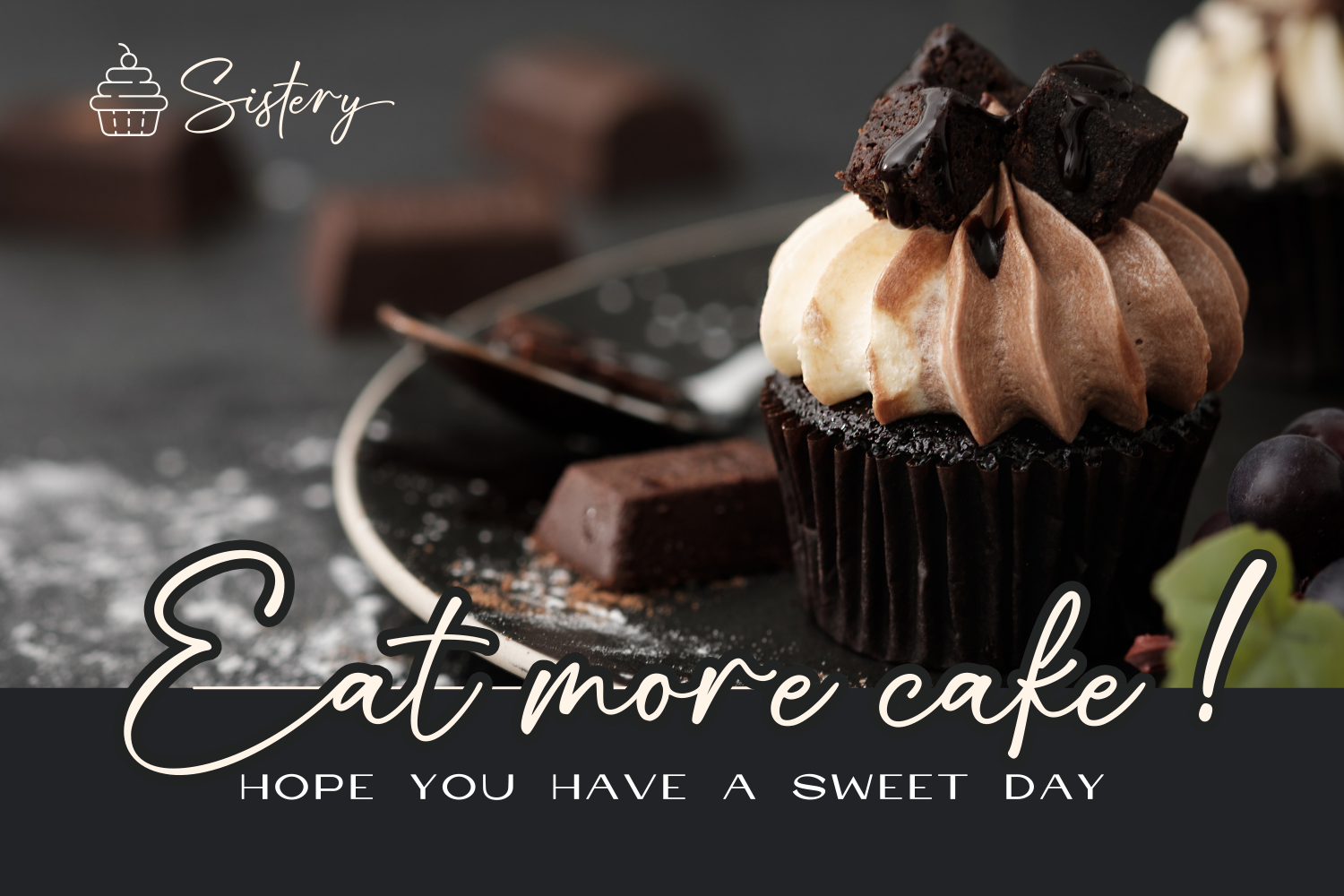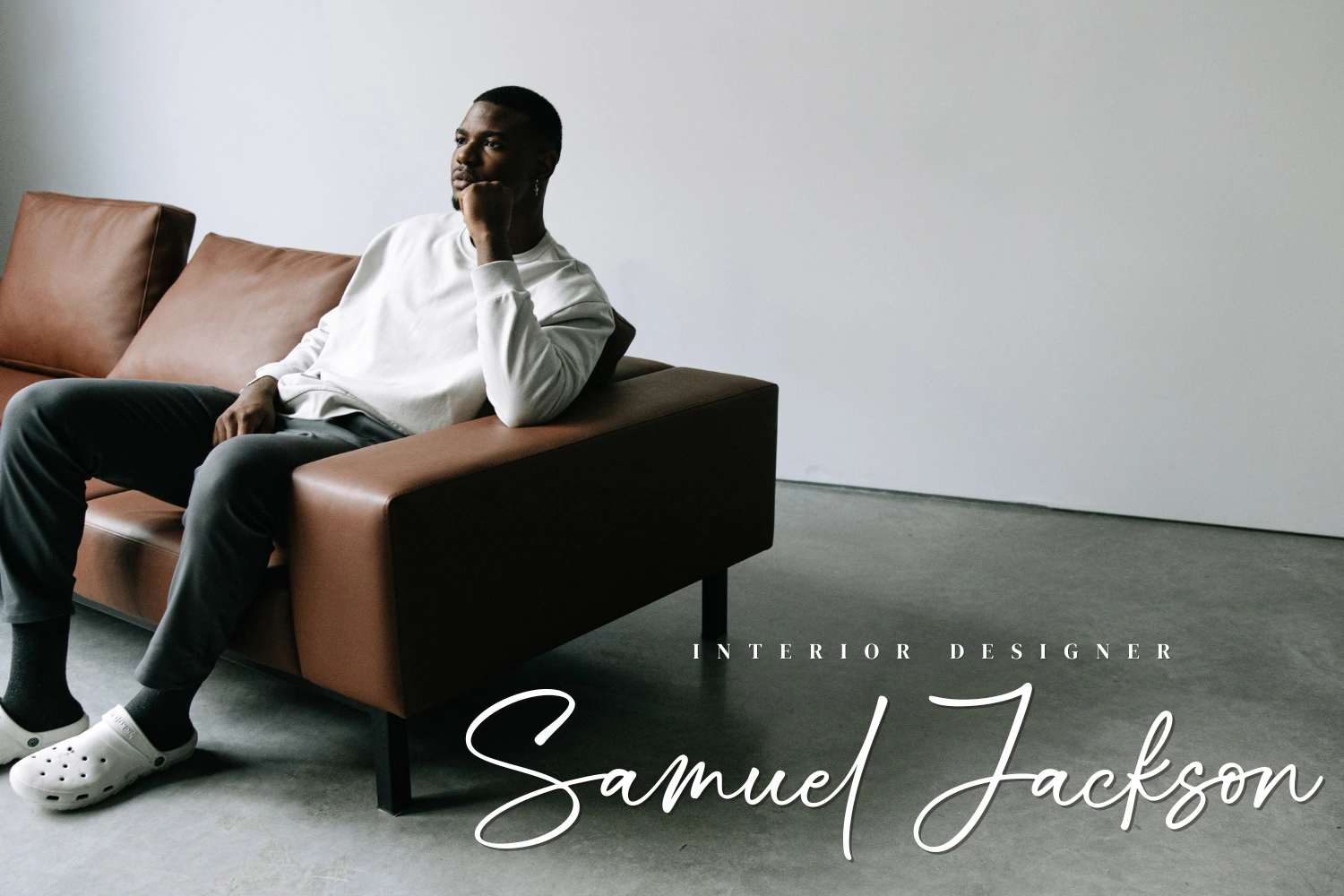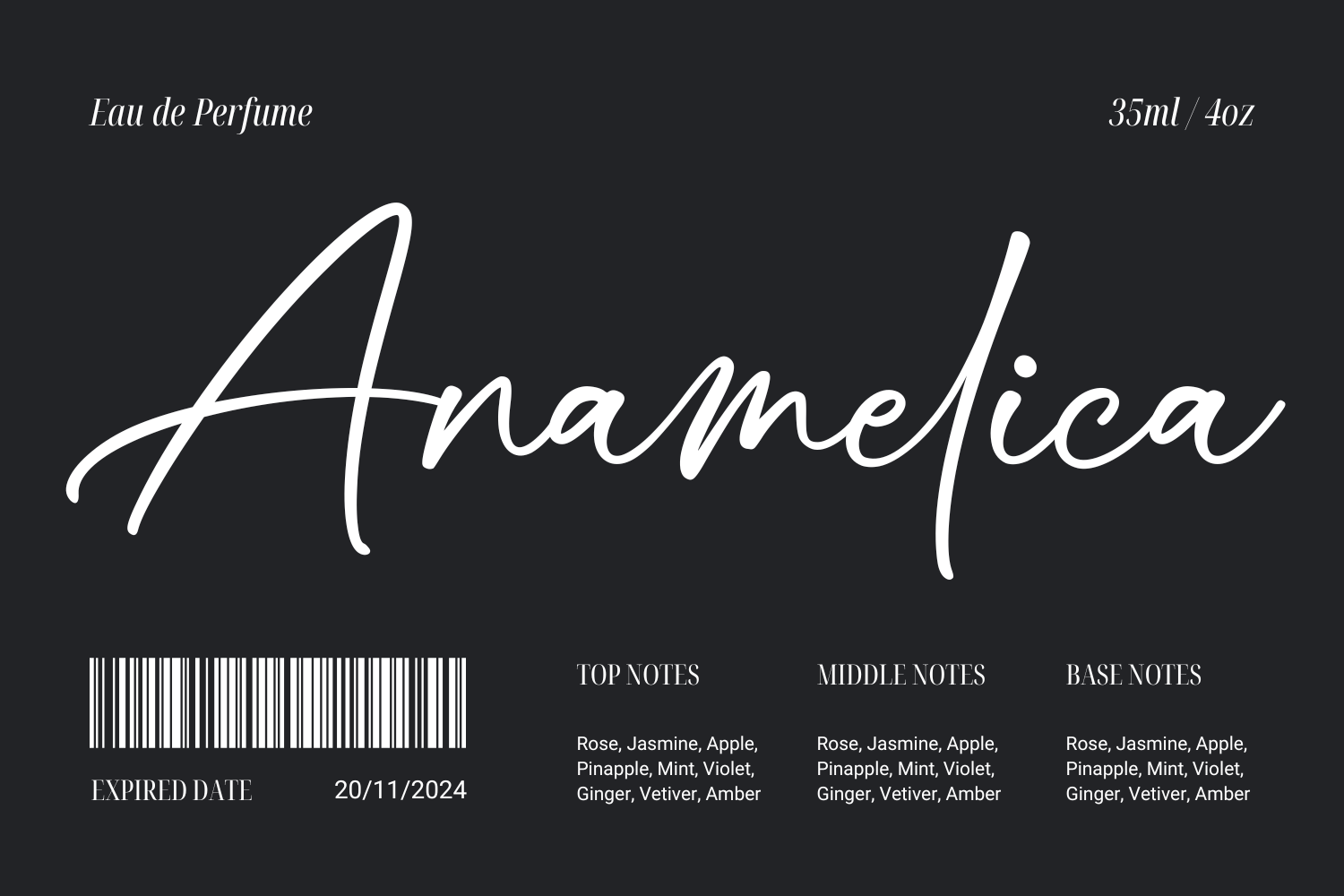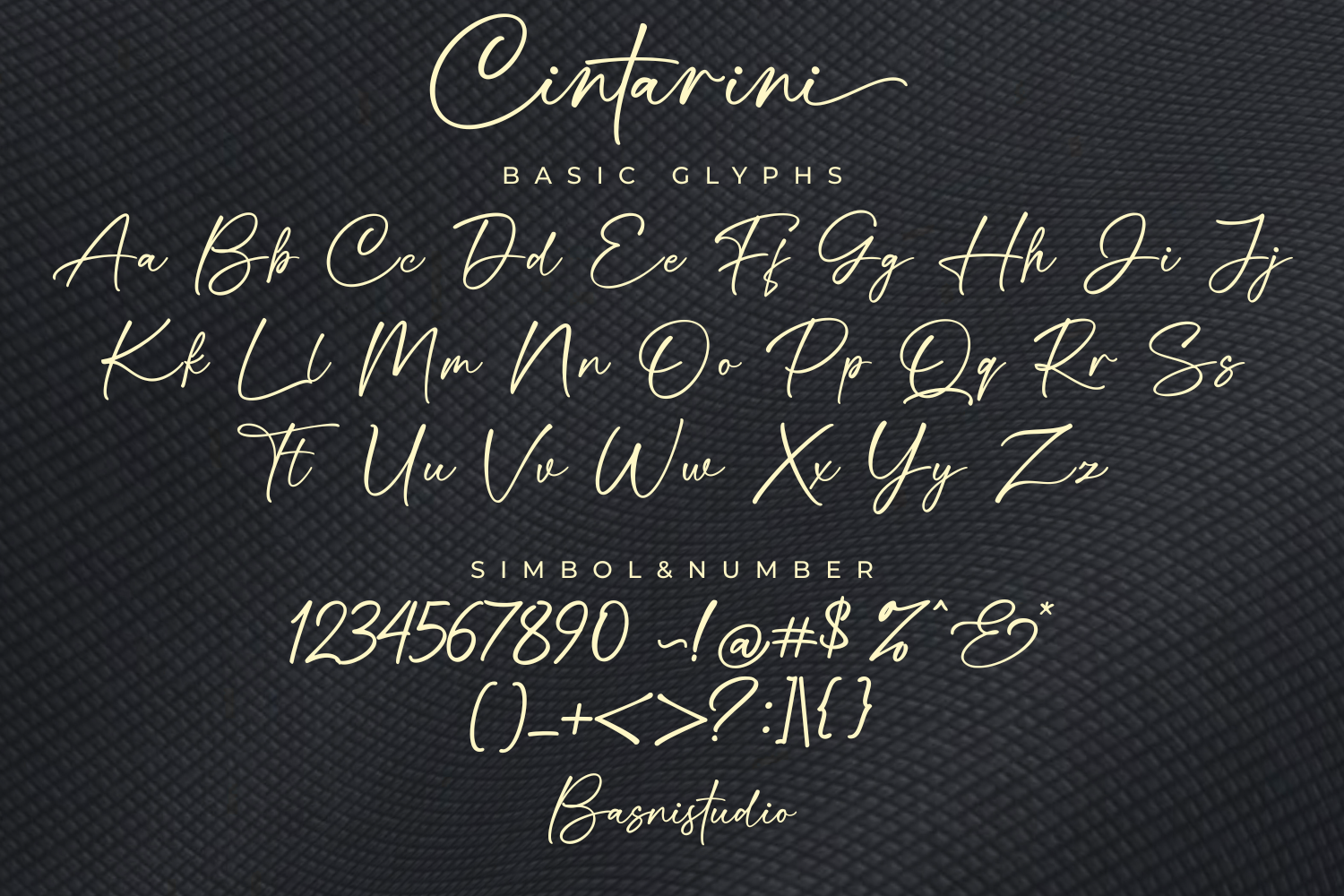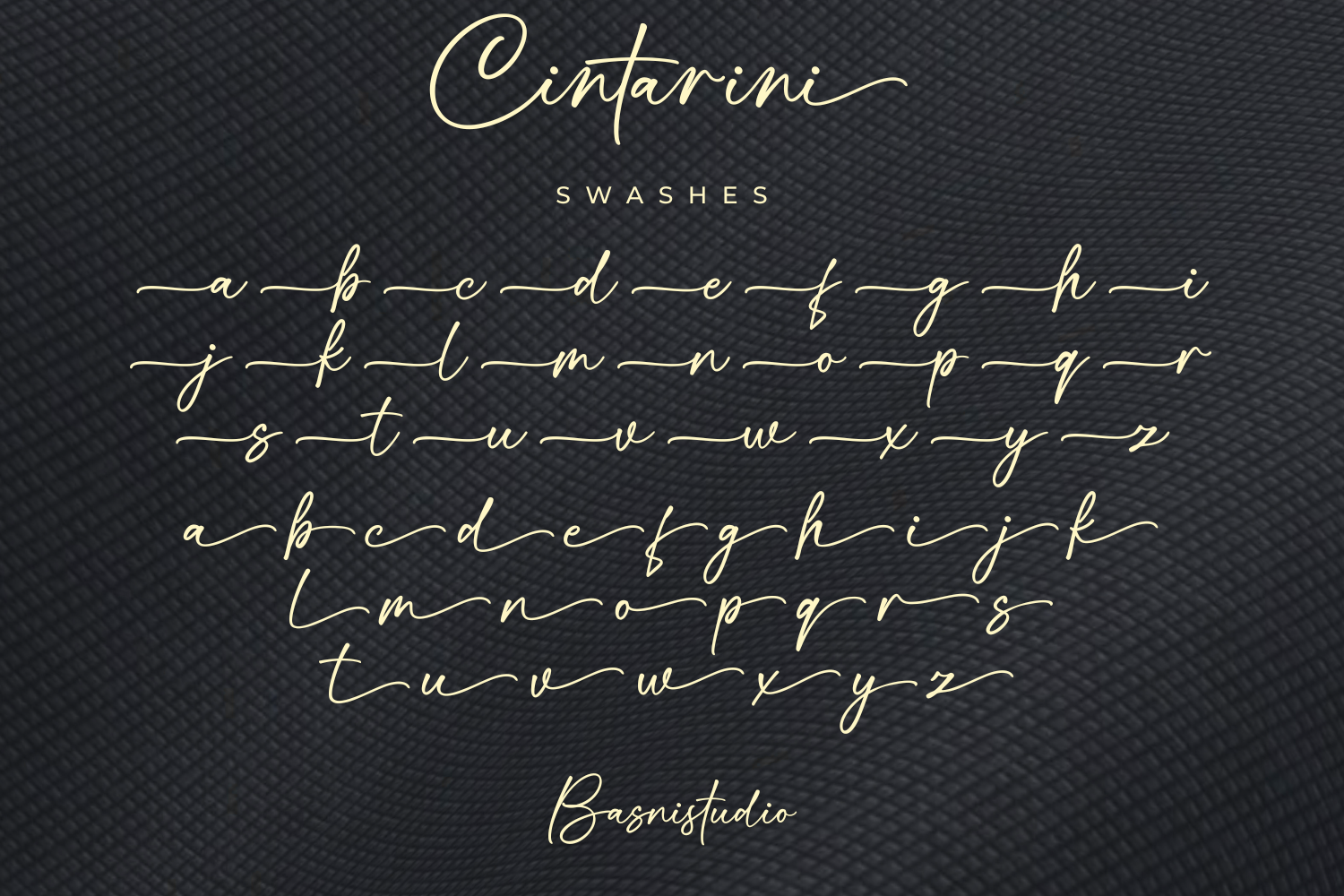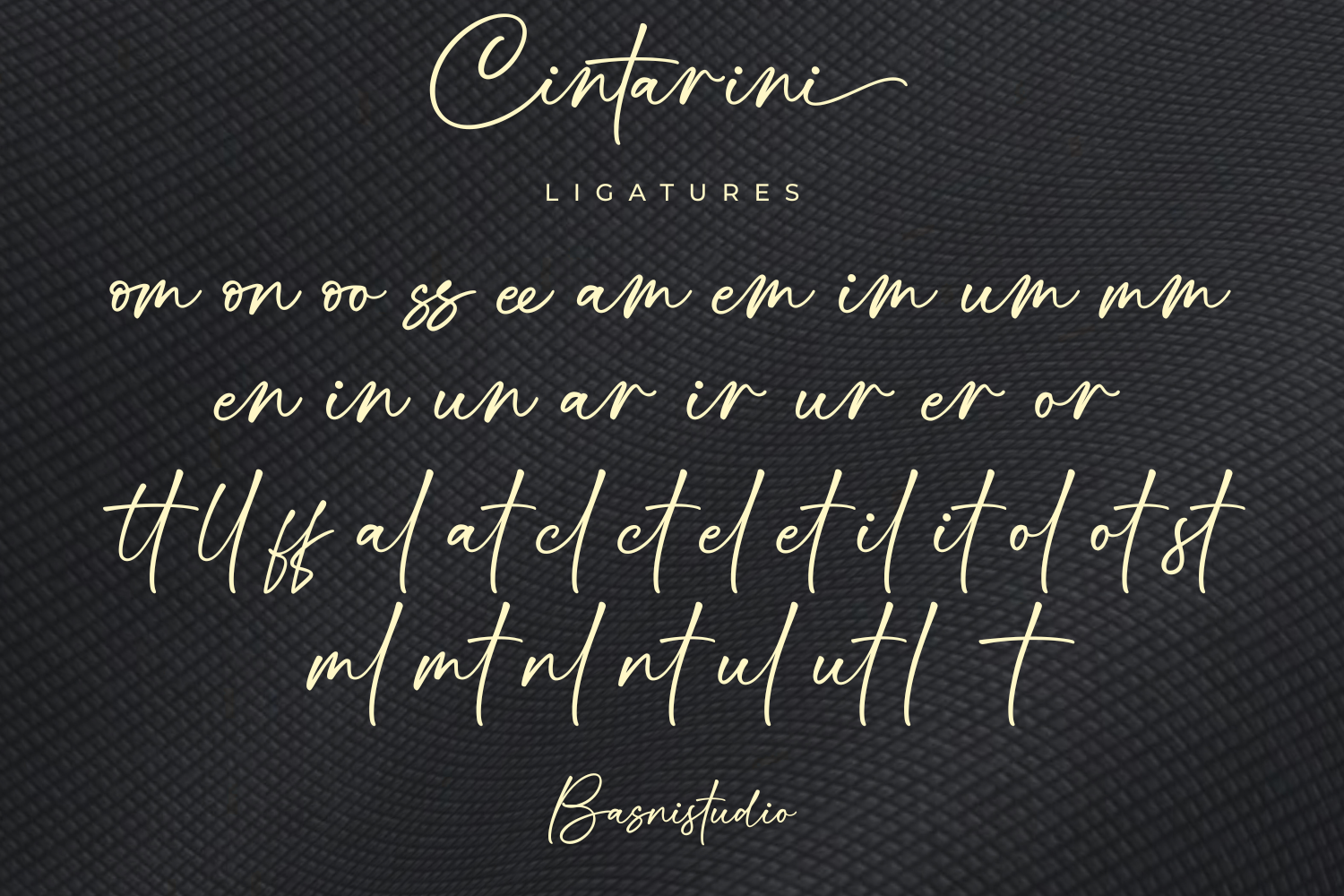
Perfect Handwriting Touch for Your Designs
Introducing Cintarini, an Flawless handwritten font crafted with authentic Brush for Natural & Casual touch for everything from branding and social media to invitations and packaging.
Elegant & Casual – Perfect for tagline, quotes, greeting cards, and more
Authentic Handwritten Feel – Created with authentic Brush for Natural & Casual
Whether you’re building a powerful brand identity or crafting a standout design,
Cintarini a Handwritting Font Created with authentic Brush for Natural & Casual look gives you the creative edge you need.
• Uppercase & lowercase letters
• Ligature & Alternates
• Swashes
• Multilingual Support ( Support for 90 languages )